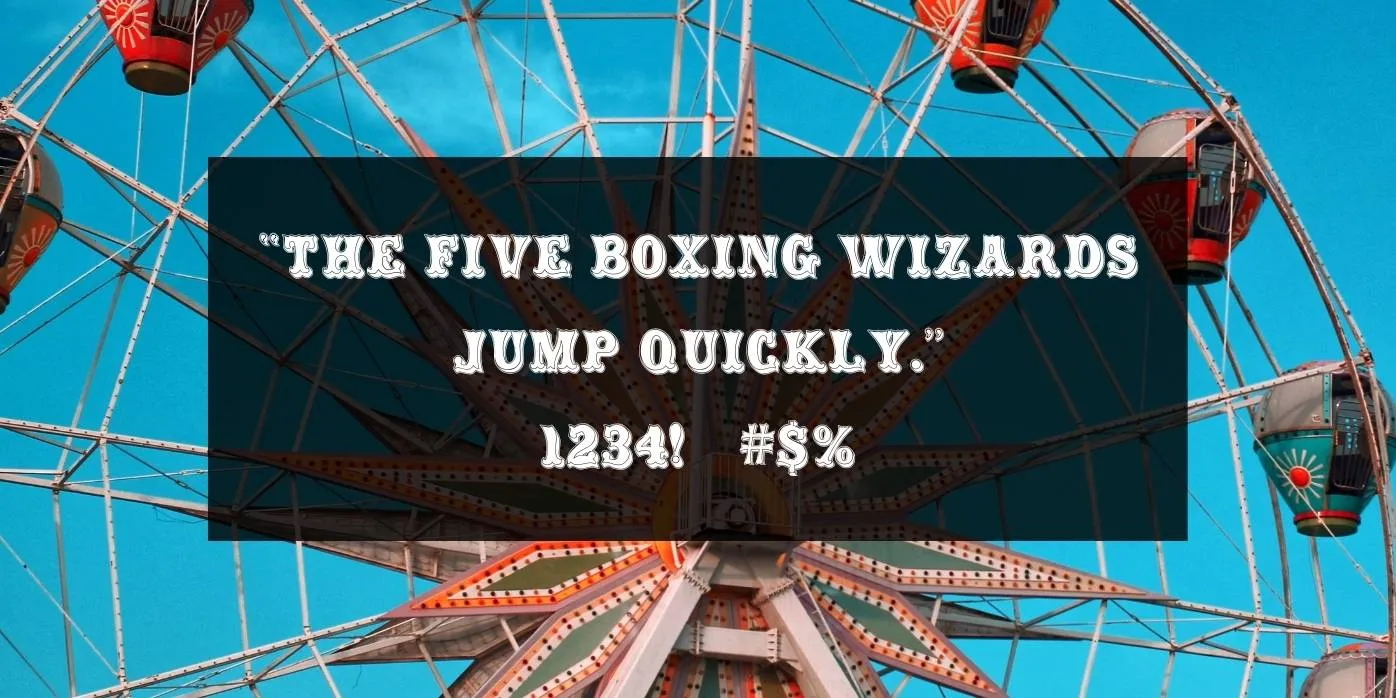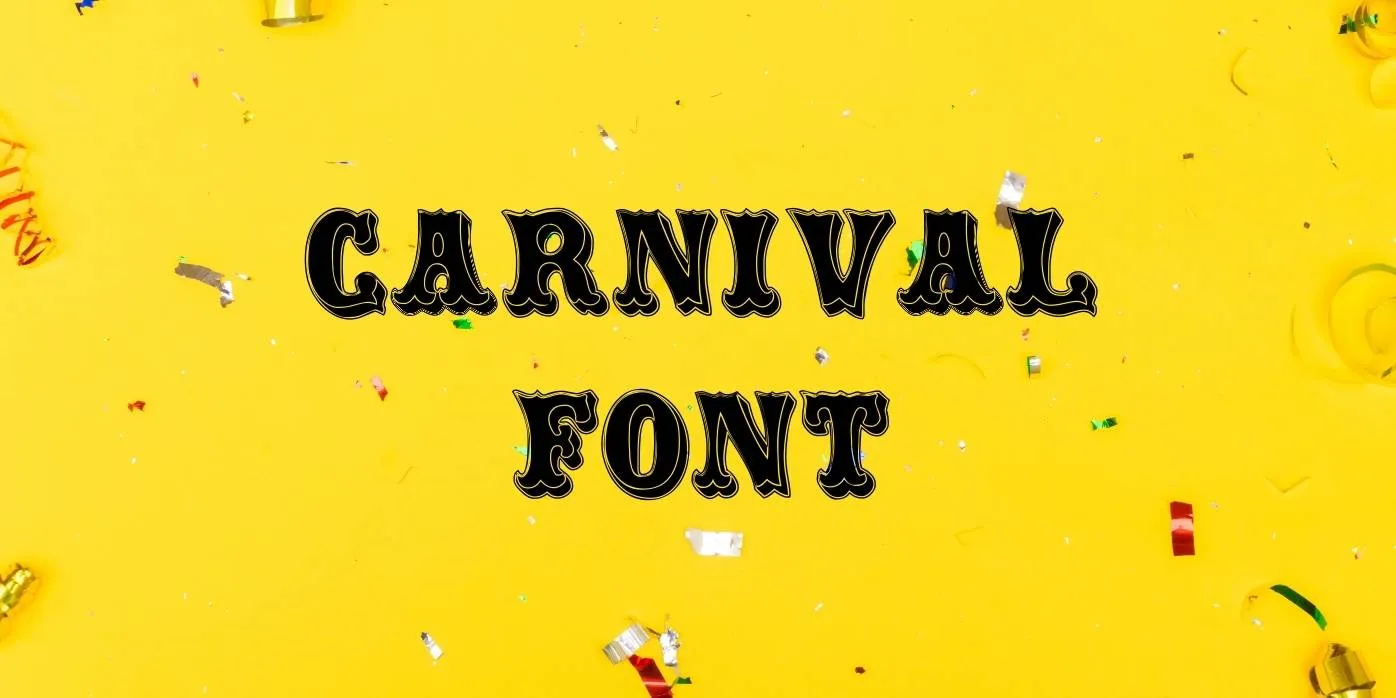
Carnival Font
Here, we present a gorgeous typeface named Carnival Font. It belongs to a fancy font and was created by a famous designer Richard William Mueller. This stylish font has available only in the regular style with amazing features. Also, it contains more than 200 characters as well as supports many international languages.
Carnival Font has an elegant and vintage look that makes your design more attractive. This best font family is perfect for branding, headlines, wedding cards, invitations, quotes, and other projects. You can use it for Adobe. Moreover, this fancy font is used for both personal and commercial use.